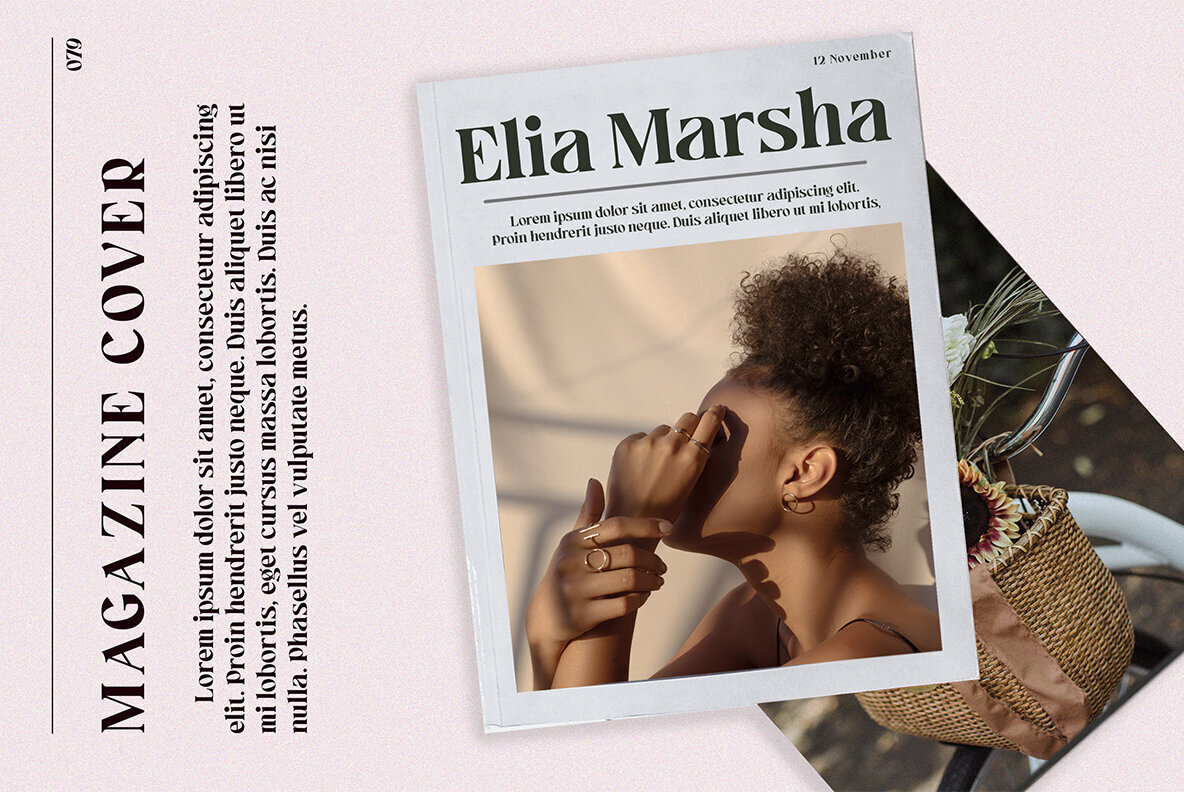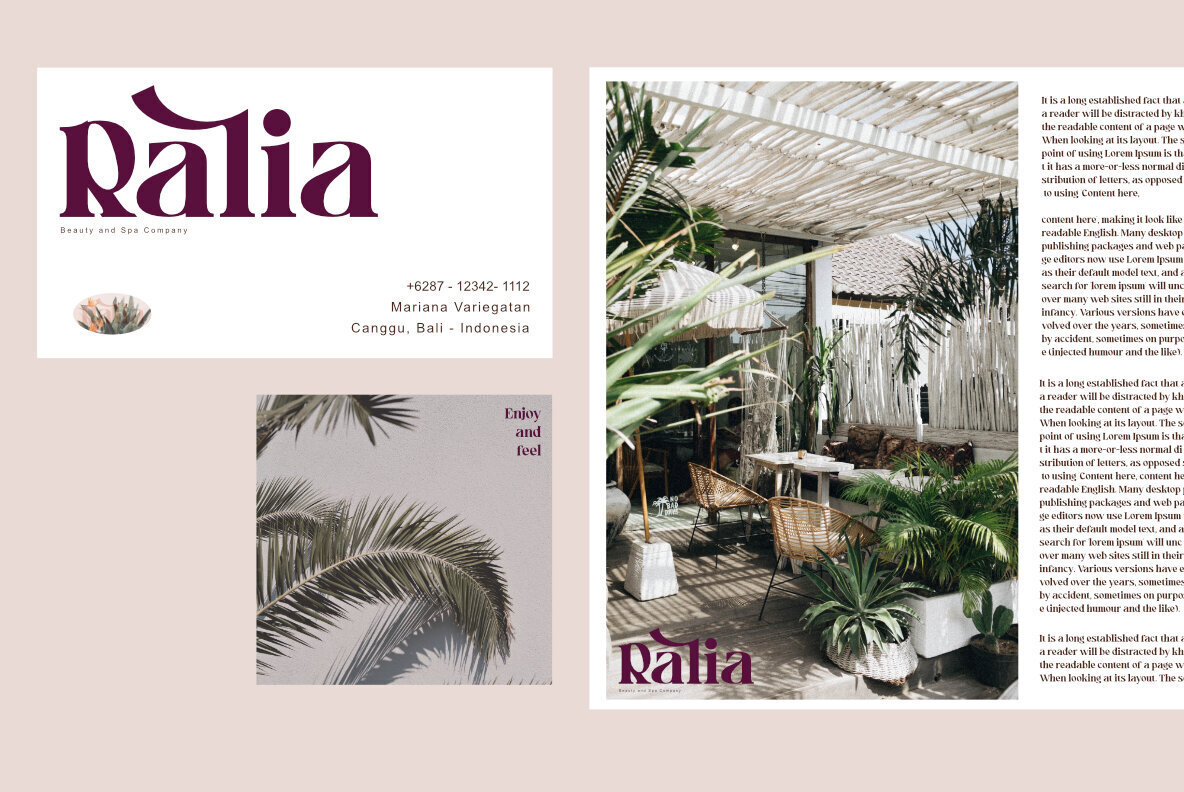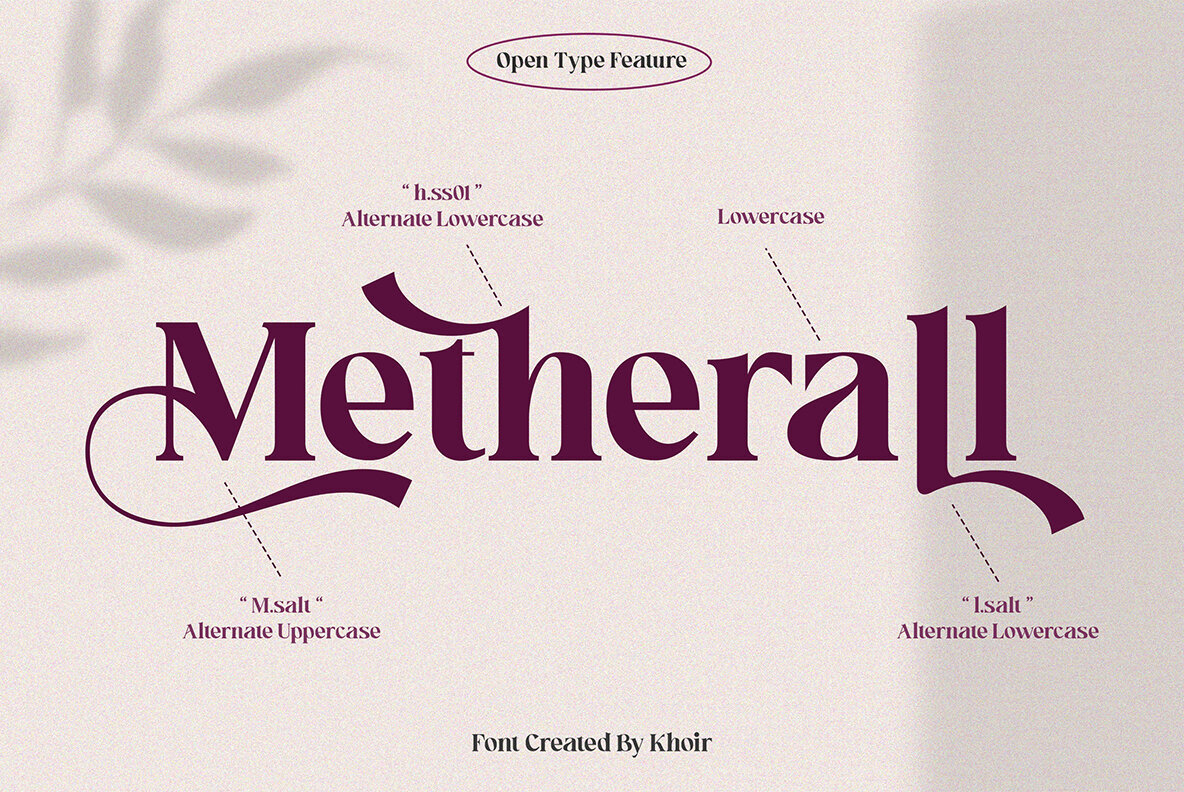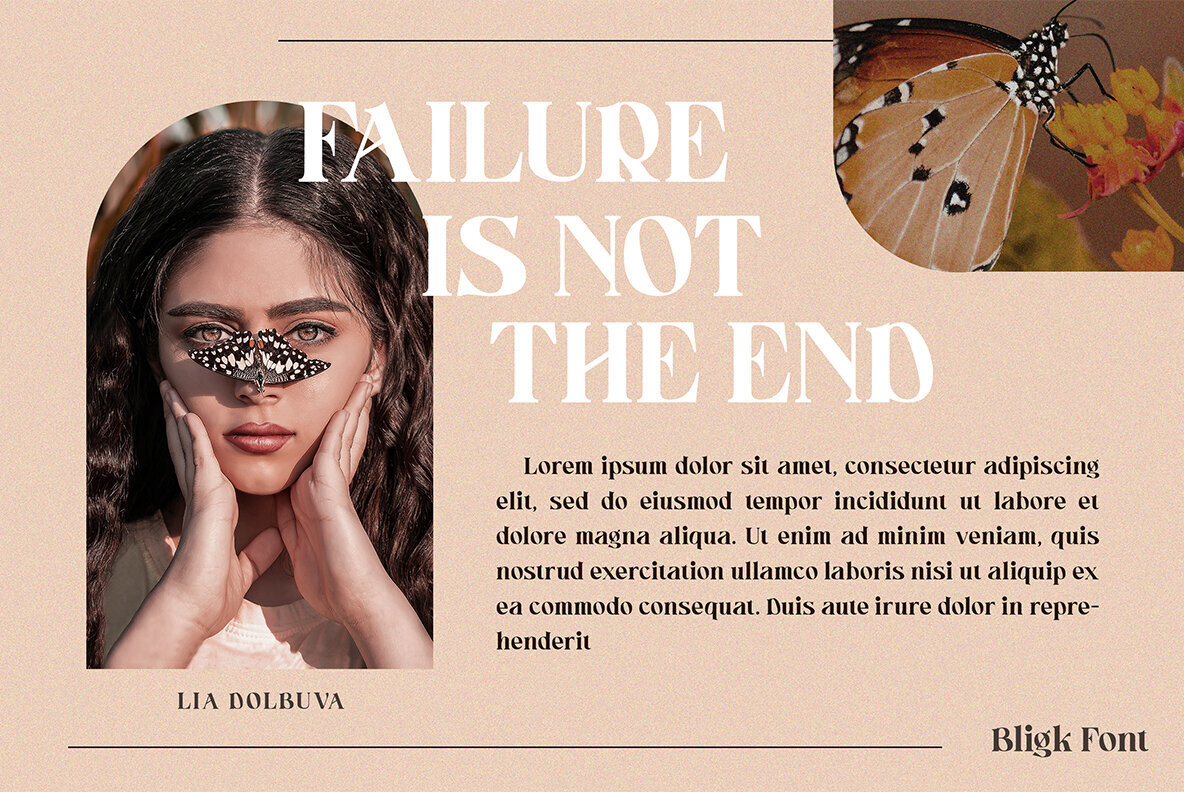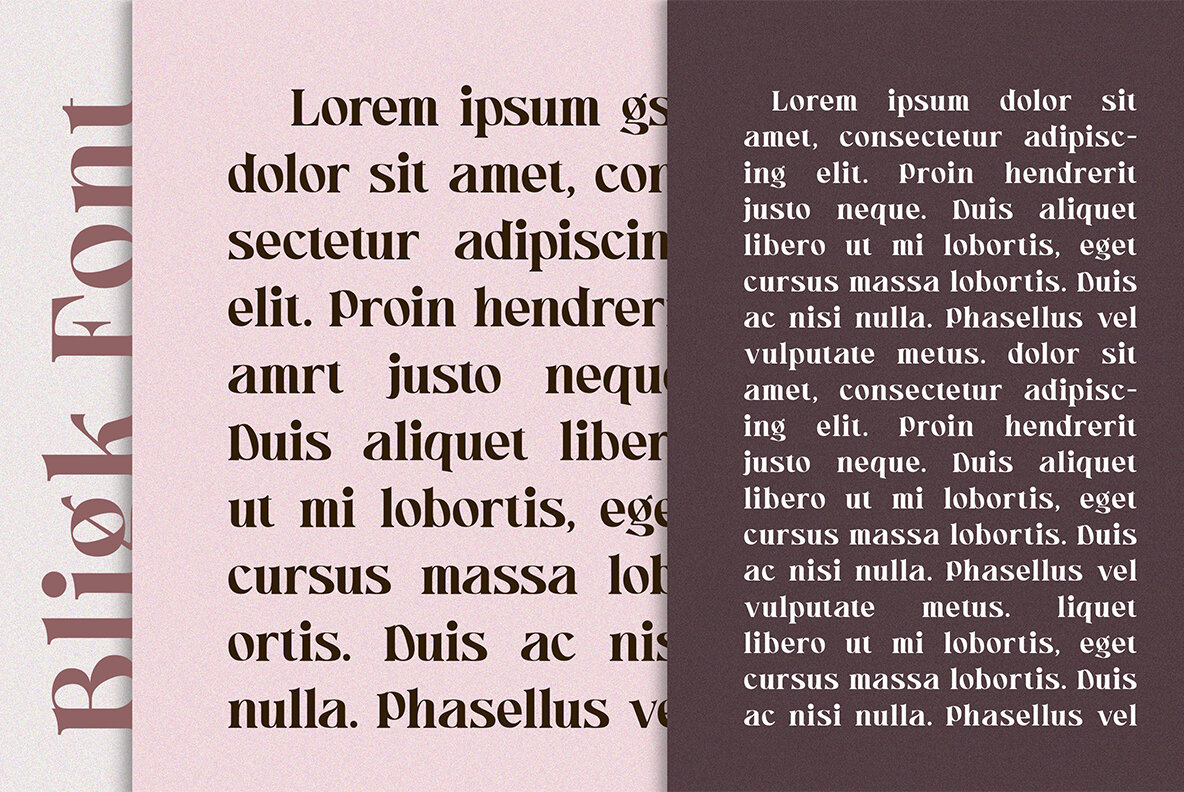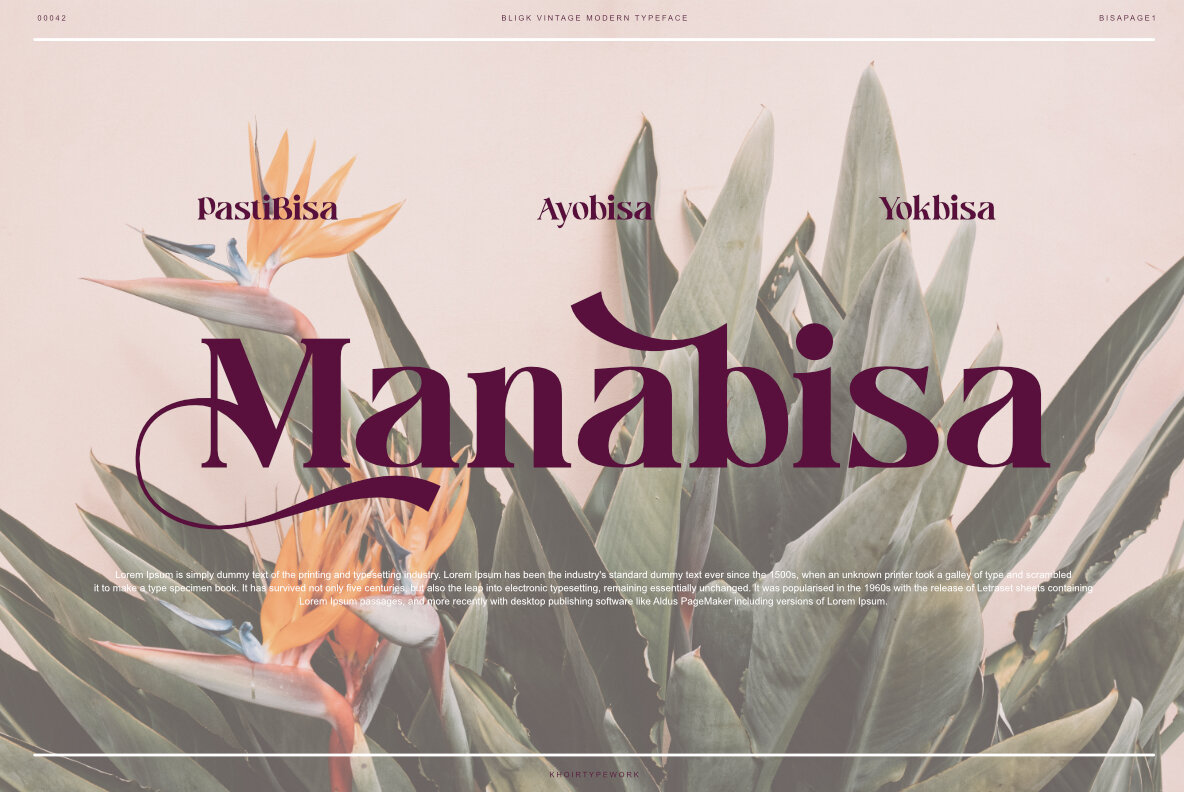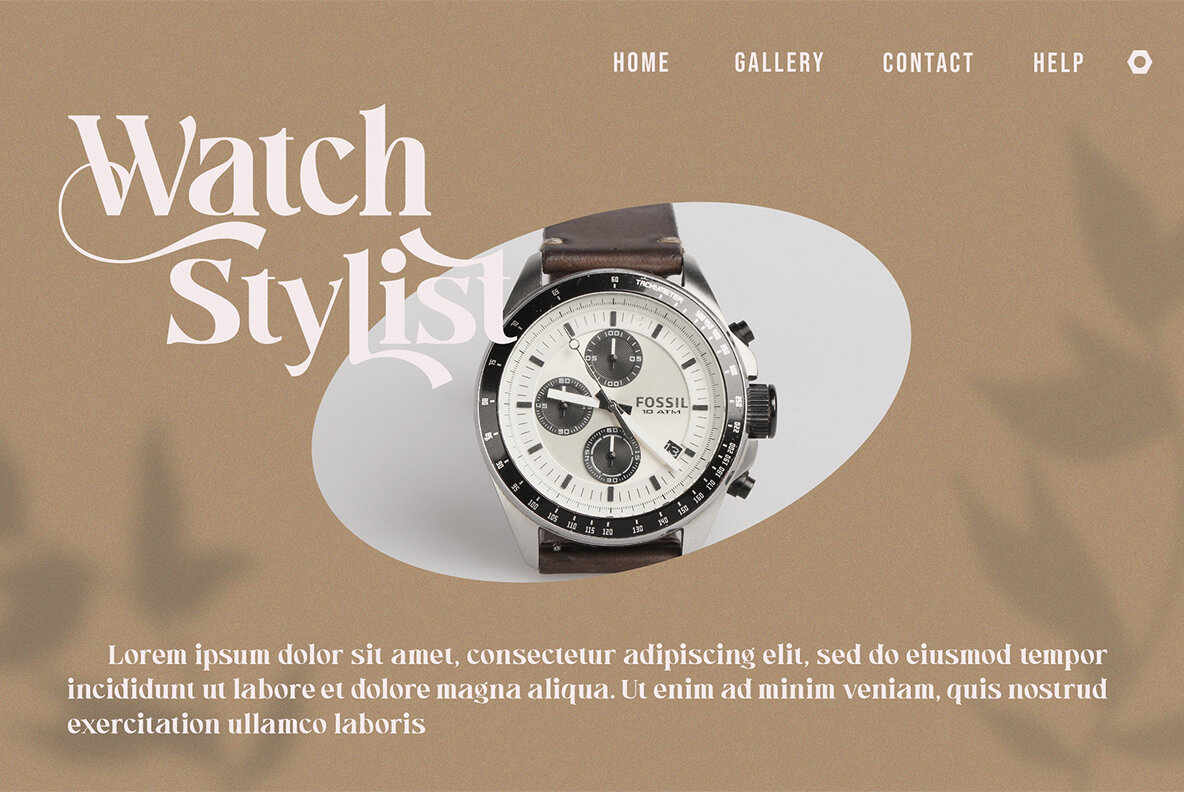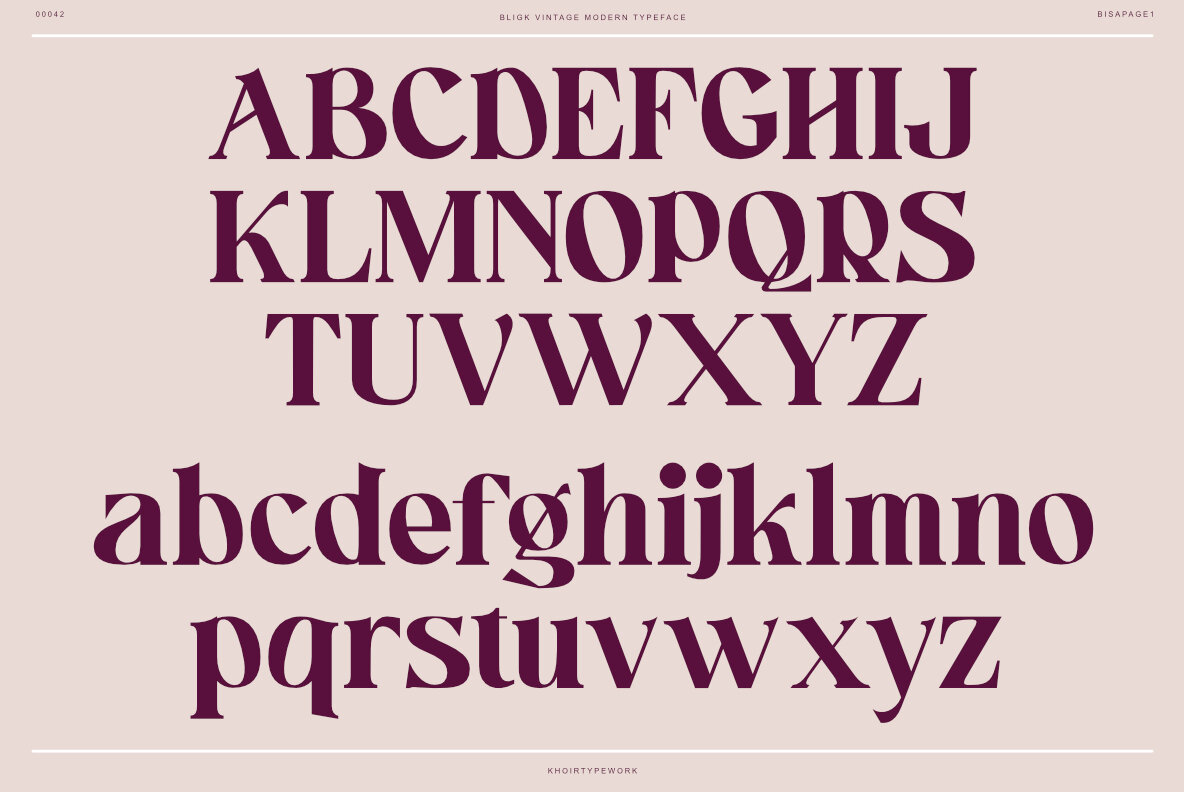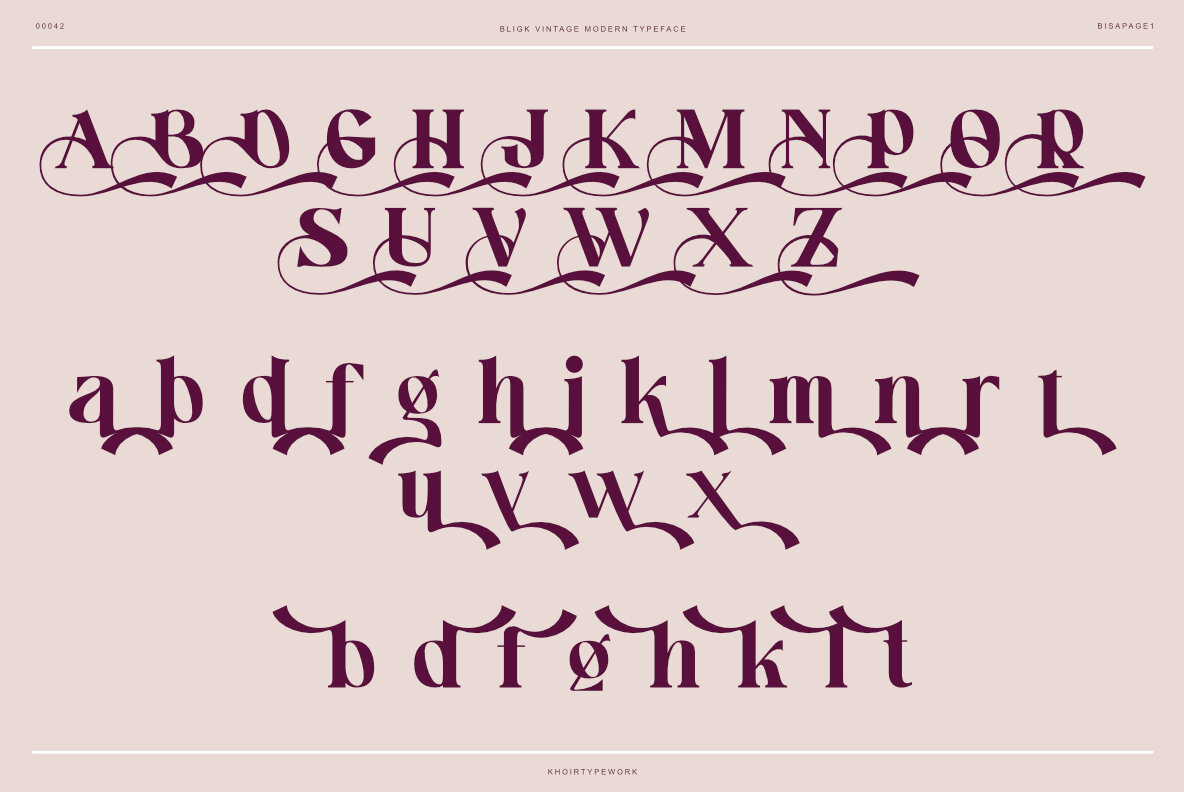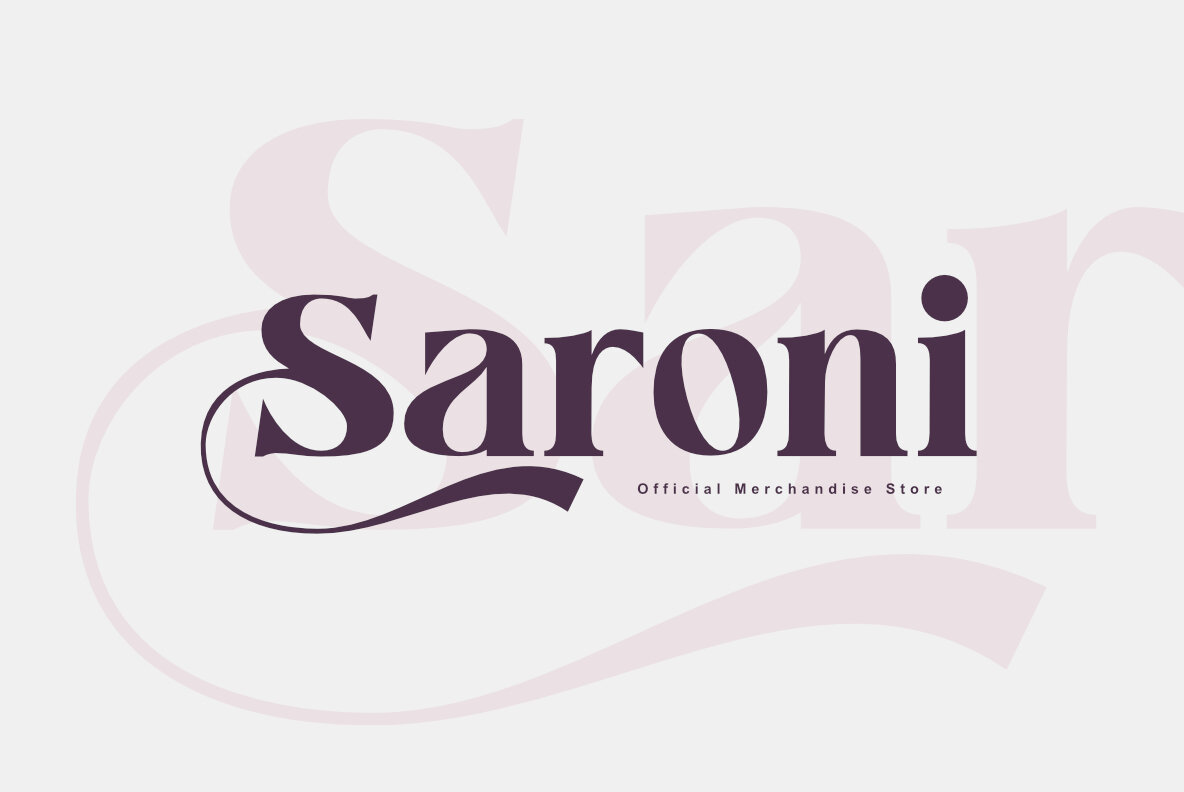
Bligk Font
Bligk
Bligk is a serif font that elegantly blends modern and vintage aesthetics, drawing inspiration from Art Nouveau design. Its distinct style offers a unique and sophisticated impression suitable for various contemporary design applications. Bligk's versatility is complemented by a full set of custom and multilingual alternatives, making it an ideal choice for projects ranging from logos and branding to invitations and web design. Its elegance and functionality make it a valuable asset for any designer's toolkit. Features:Bligk: Art Nouveau Inspired Serif